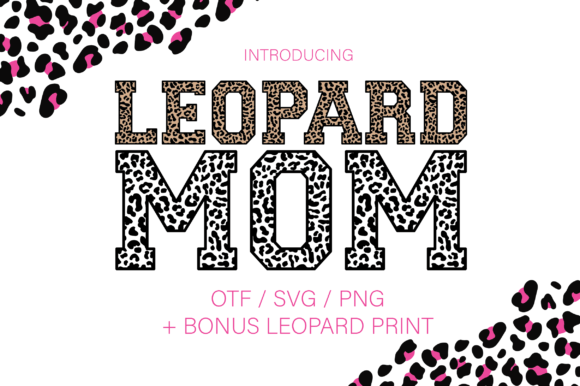
Welcome to the exciting world of Leopard Mom Font, the latest addition to your font collection! This decorative font, created by SVG Bloom, is more than just a set of letters - it is a statement.
If you're looking to add some extra personality and pizzazz to your designs, Leopard Mom Font is the perfect choice. This font is designed with fun in mind, making it an ideal choice for sports shirts, team logos, and all kinds of school projects that require a playful touch. And if you're a lover of leopard print, you're in luck - this font is all about that wild and fun style!
Leopard Mom Font is not just any font. It is a font that will elevate your designs and make them stand out from the crowd. With its unique style and eye-catching curves, your designs will be sure to capture attention and leave a lasting impression on your audience.
But Leopard Mom Font isn't just about looks - it's also incredibly versatile. Whether you're designing a poster, a logo, a social media graphic, or a website, this font can do it all. It's perfect for any project that requires a touch of creativity and fun.